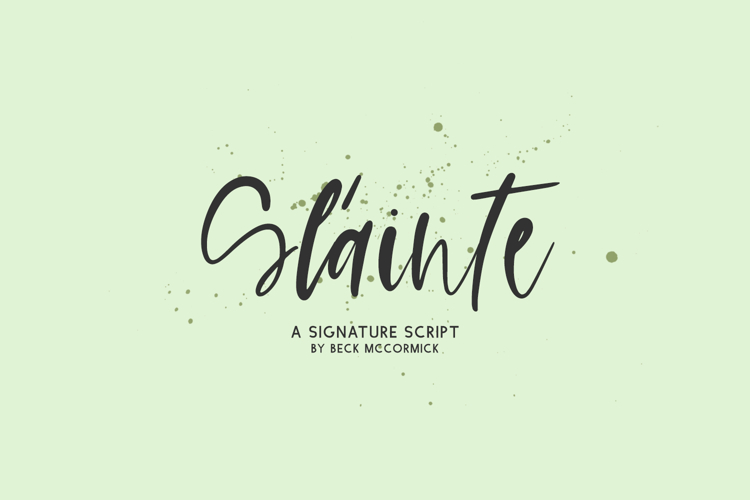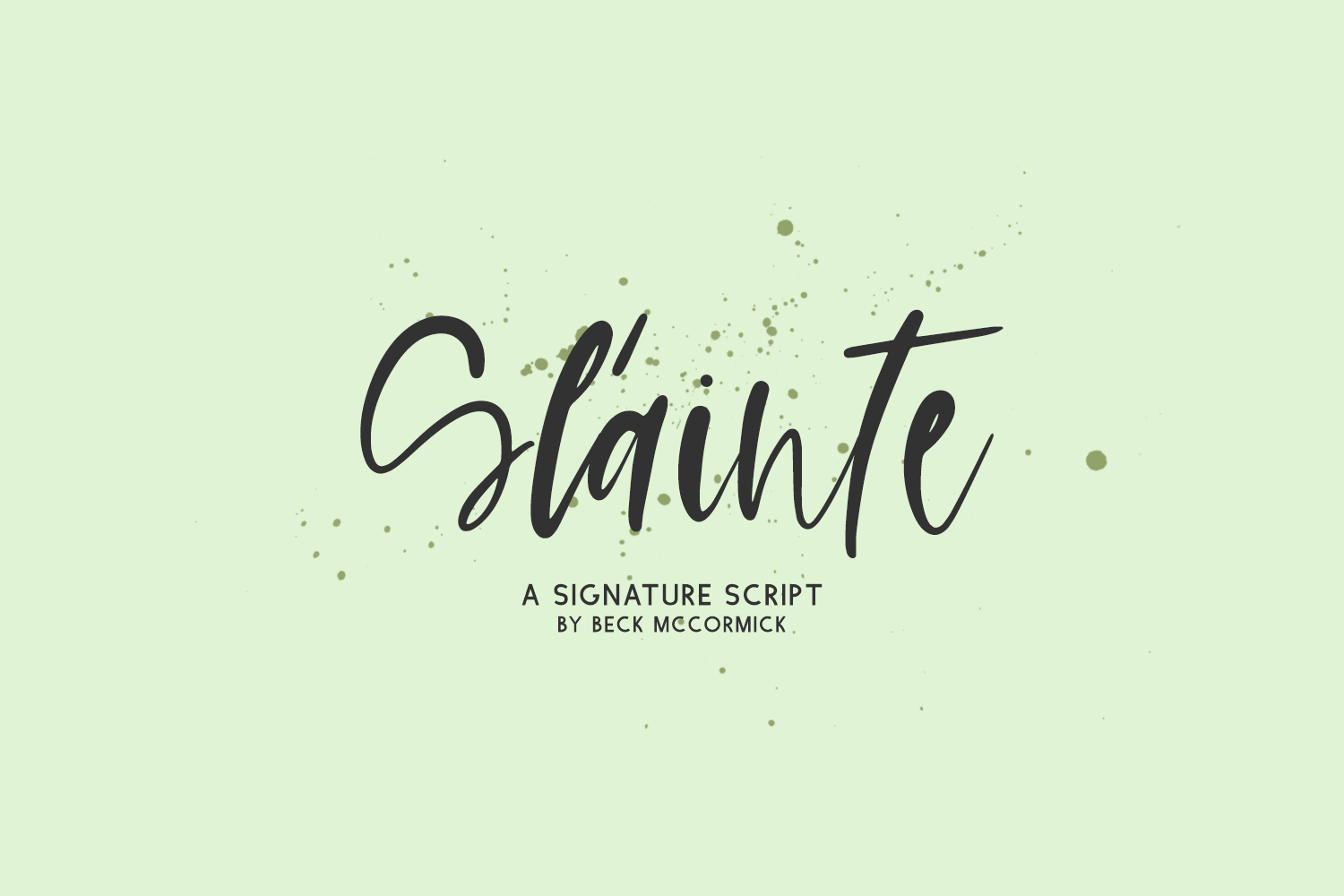
Slainte Signature Font
Introducing Slainte, a handwriting font that features alternate characters and ligatures.
- 25 alternates
- 23 ligatures - ar, arr, at, ax, bb, em, en, er, es, ff, gg, ir, it, iv, om, on, or, pp, ri, tt, ur, ve, wh